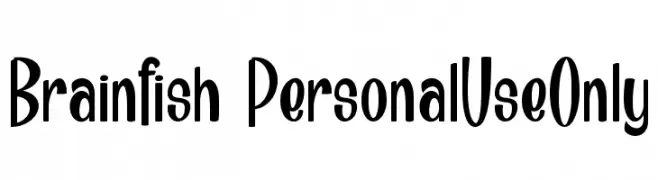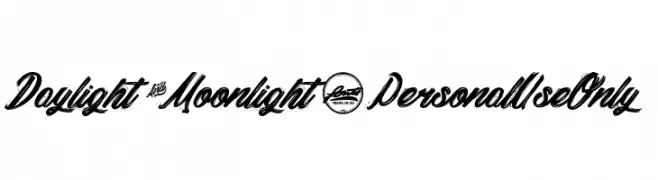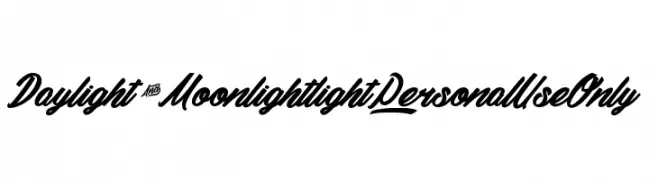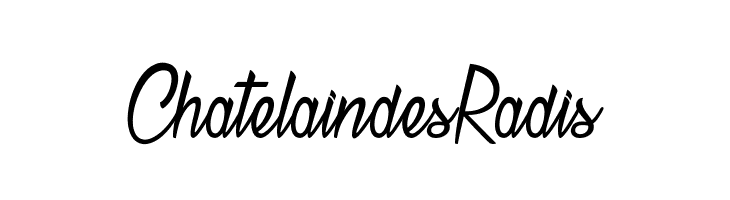
( dcoxy - Greg Medina - www.dcoxy.com/ )
A playful, bold, hand-drawn font with a whimsical style.
( dcoxy - Greg Medina - www.dcoxy.com/ )
A bold, outlined font with a playful and cartoonish style.
( dcoxy - Greg Medina - www.dcoxy.com/ )
A bold, cursive script font with elegant, flowing letters.
( dcoxy - Greg Medina - www.dcoxy.com/ )
A dynamic and elegant script font with fluid, connected letterforms.
( dcoxy - Greg Medina - www.dcoxy.com/ )
A bold, geometric font with a futuristic and industrial style.
( dcoxy - Greg Medina - www.dcoxy.com/ )
A playful, decorative font with a stitched, cursive style.
( dcoxy - Greg Medina - www.dcoxy.com/ )
A playful, decorative font with a stitched pattern and casual, handwritten style.
( dcoxy - Greg Medina - www.dcoxy.com/ )
A bold, cursive font with interconnected characters and a dynamic flow.
( dcoxy - Greg Medina - www.dcoxy.com/ )
A bold, cursive font with dynamic, sweeping strokes and a brush-like appearance.
( dcoxy - Greg Medina - www.dcoxy.com/ )
A bold, cursive font with fluid, interconnected characters.